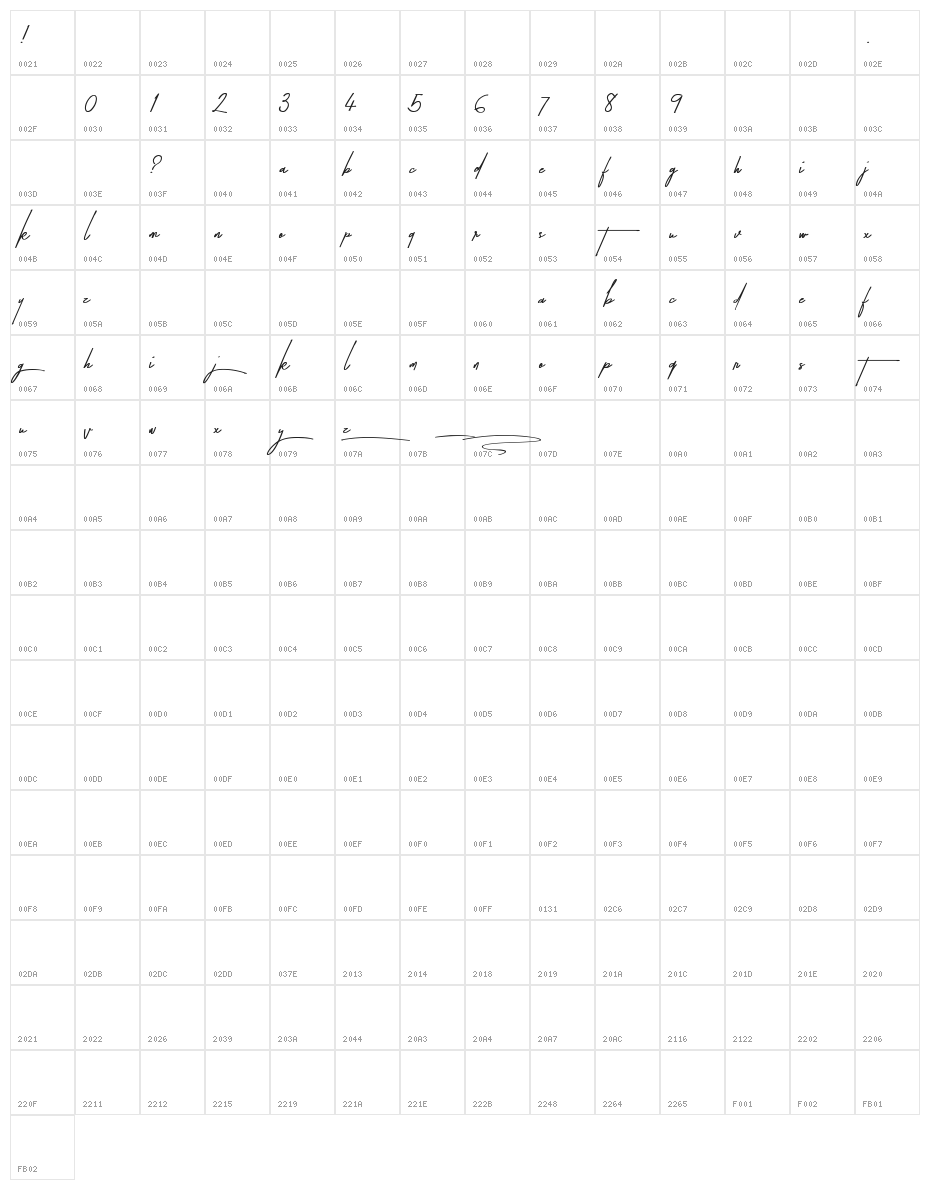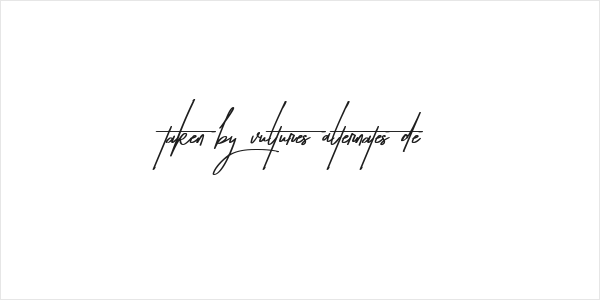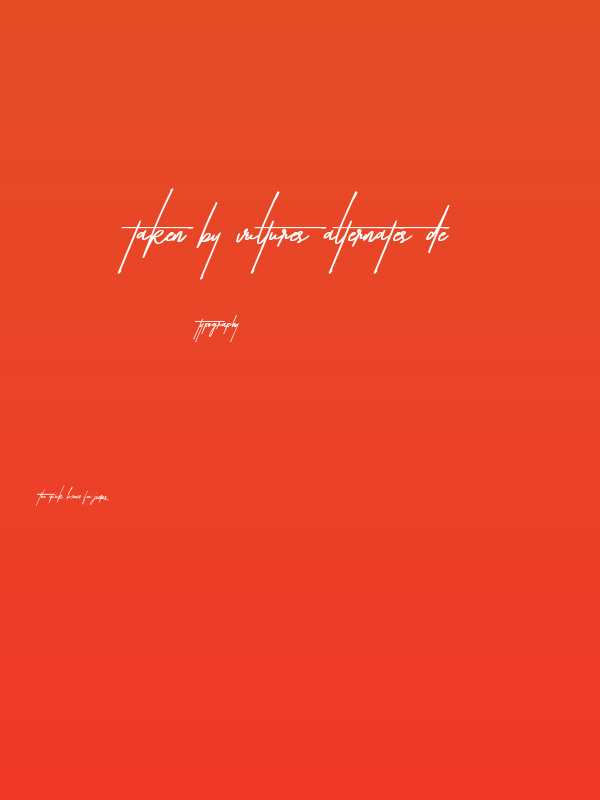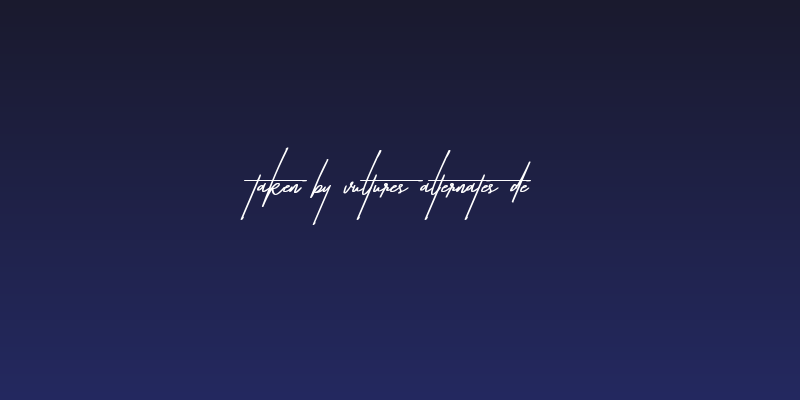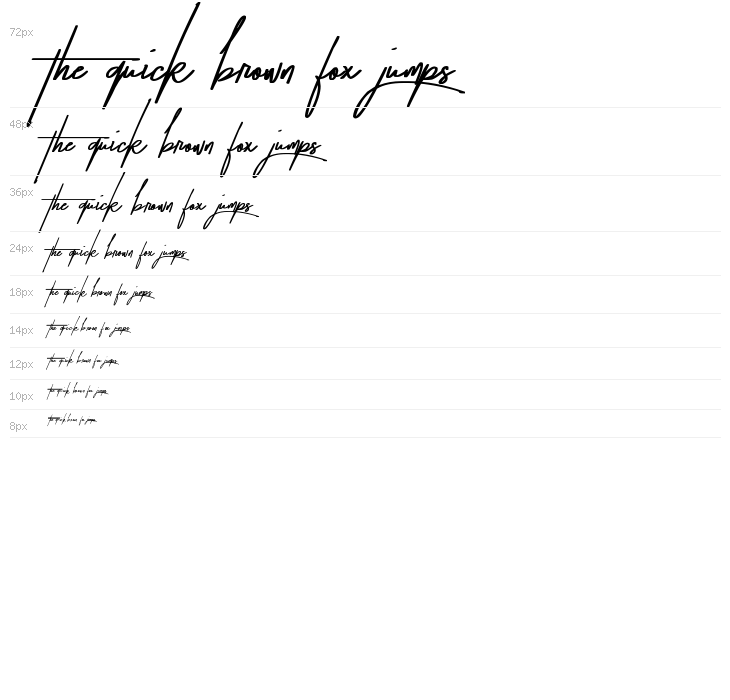
Taken by Vultures Alternates De Font
Taken by Vultures Alternates De Description
This font features a dynamic and expressive handwritten style, characterized by its fluid and cursive letterforms. The strokes are smooth and elegant, with a natural flow that mimics authentic handwriting. The uppercase and lowercase letters are distinct, with a slight slant that adds to the casual yet sophisticated appearance. The numerals are clear and consistent with the overall style, maintaining the same fluidity and elegance. The special characters are thoughtfully designed, complementing the alphabet with their unique flair. This font is perfect for projects that require a personal touch, such as invitations, greeting cards, and branding materials.
| Use Case | Logos, Headlines, Personal projects |
| Proposed Projects | Ideal for invitations, greeting cards, branding, and personal projects. |